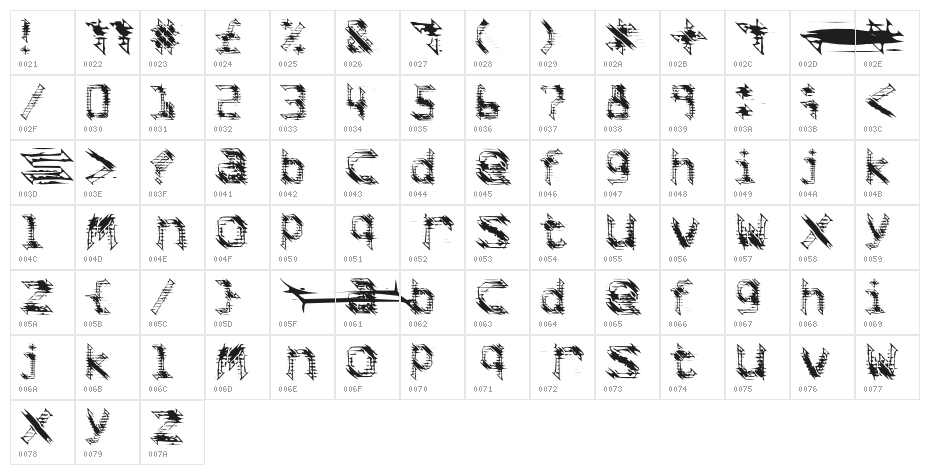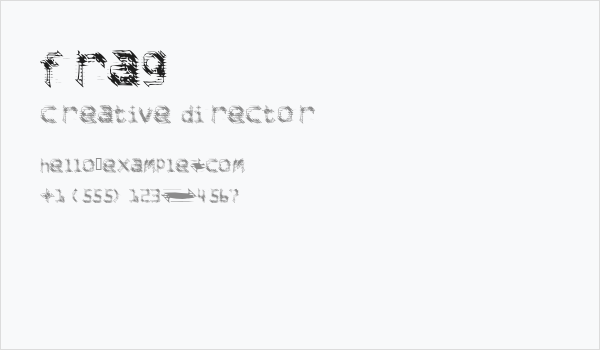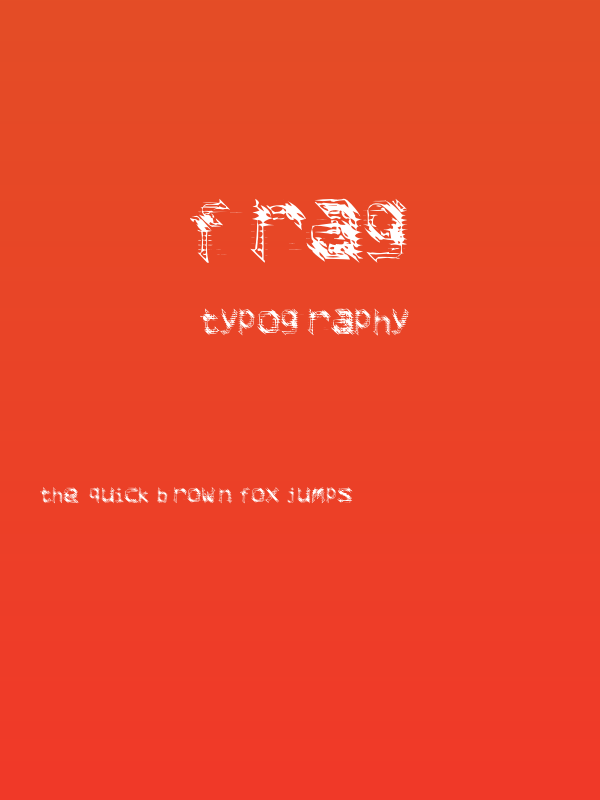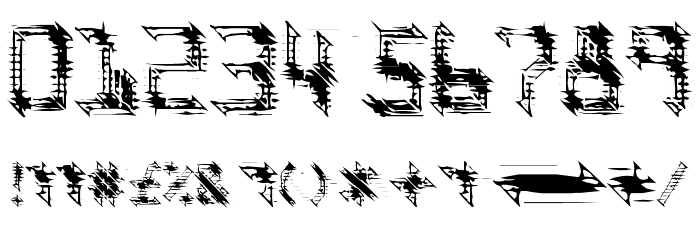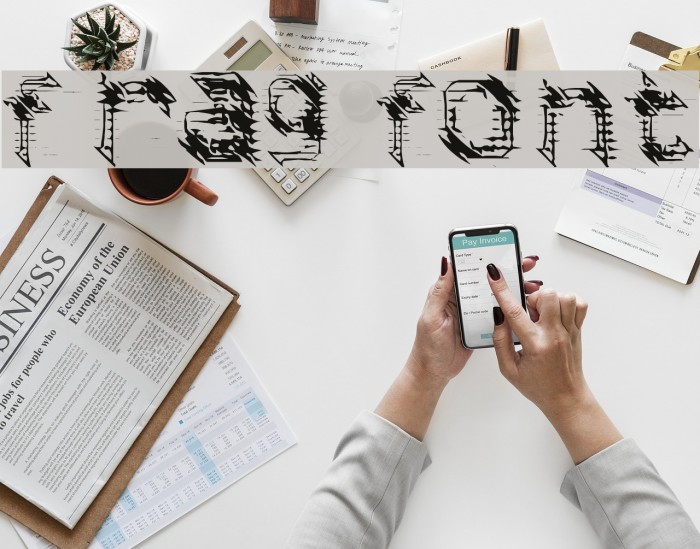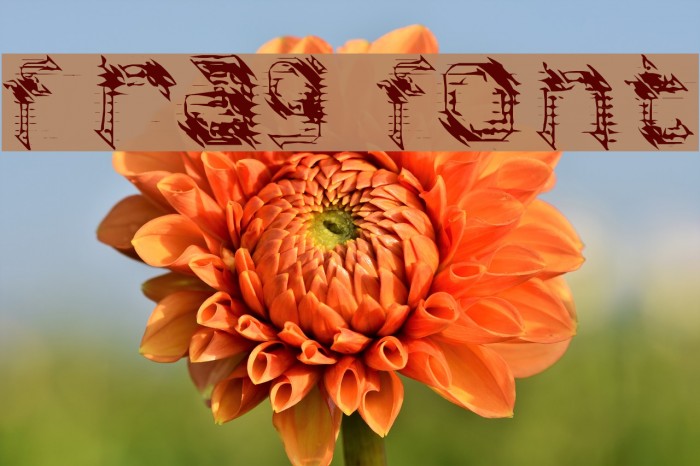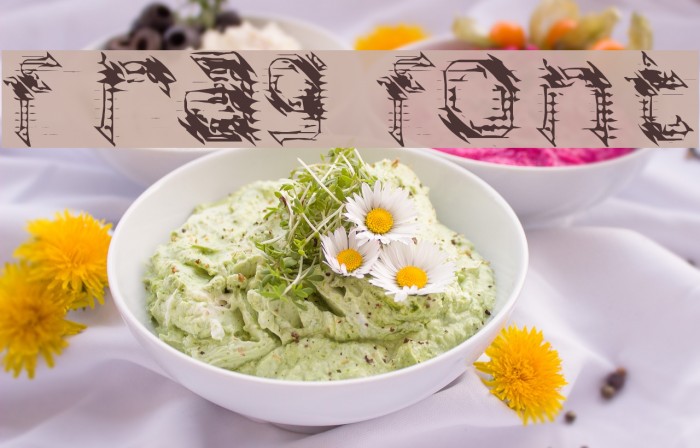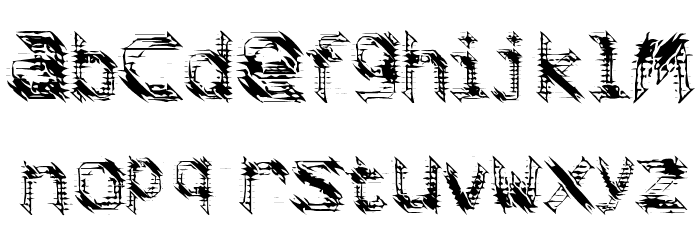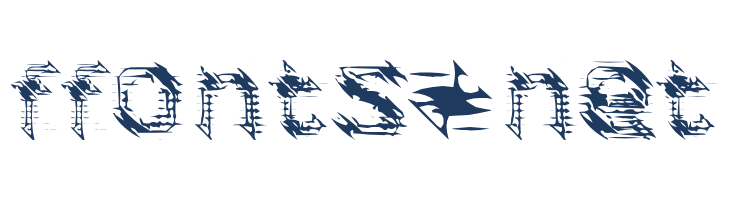
frag Font
frag Description
This font features a highly stylized and fragmented design, giving it a chaotic and dynamic appearance. The characters are composed of sharp, angular lines with a glitch-like effect, creating a sense of movement and energy. The uppercase and lowercase letters maintain a consistent style, with each character appearing as if it is breaking apart or being distorted. Numbers and special characters follow the same design principles, ensuring uniformity across the font. This unique style makes it stand out, offering a modern and edgy aesthetic.
| Overall Style | Modern, Edgy |
| Proposed Projects | Ideal for digital art, video game graphics, music album covers, and edgy branding projects. |